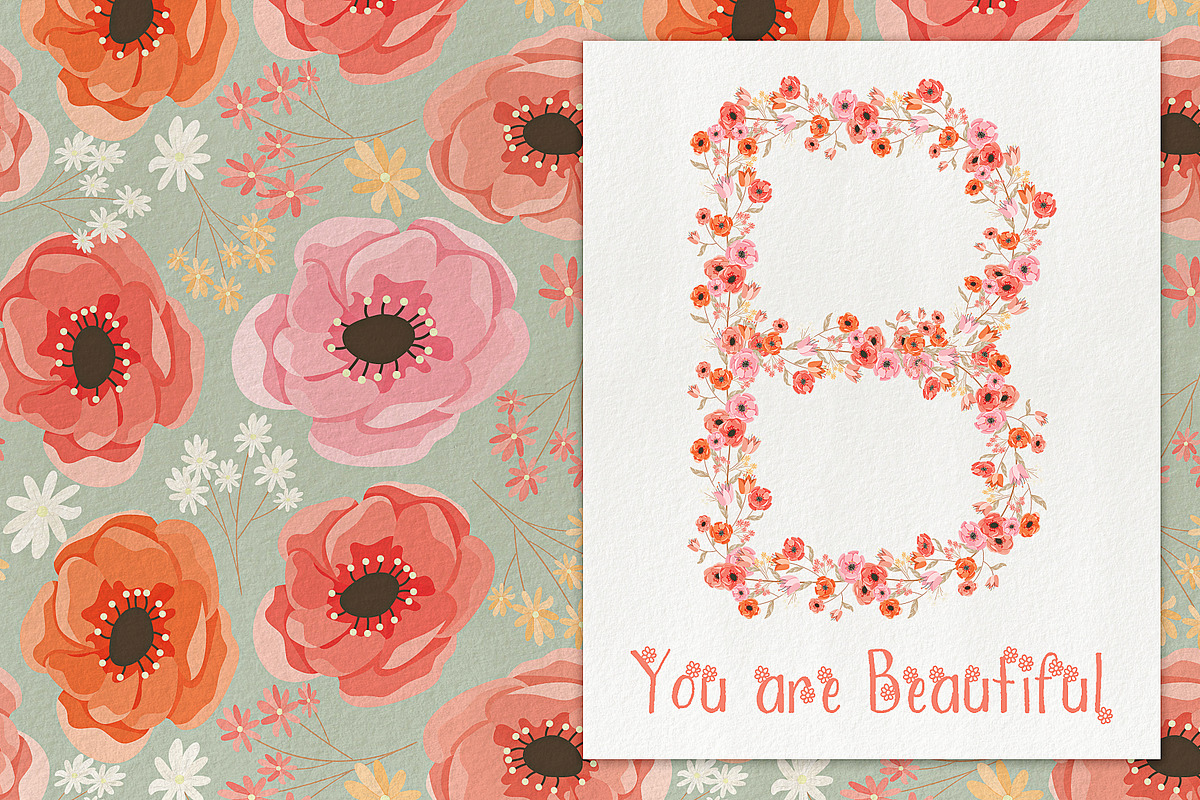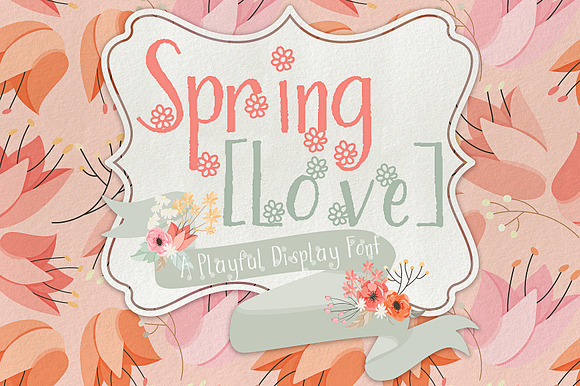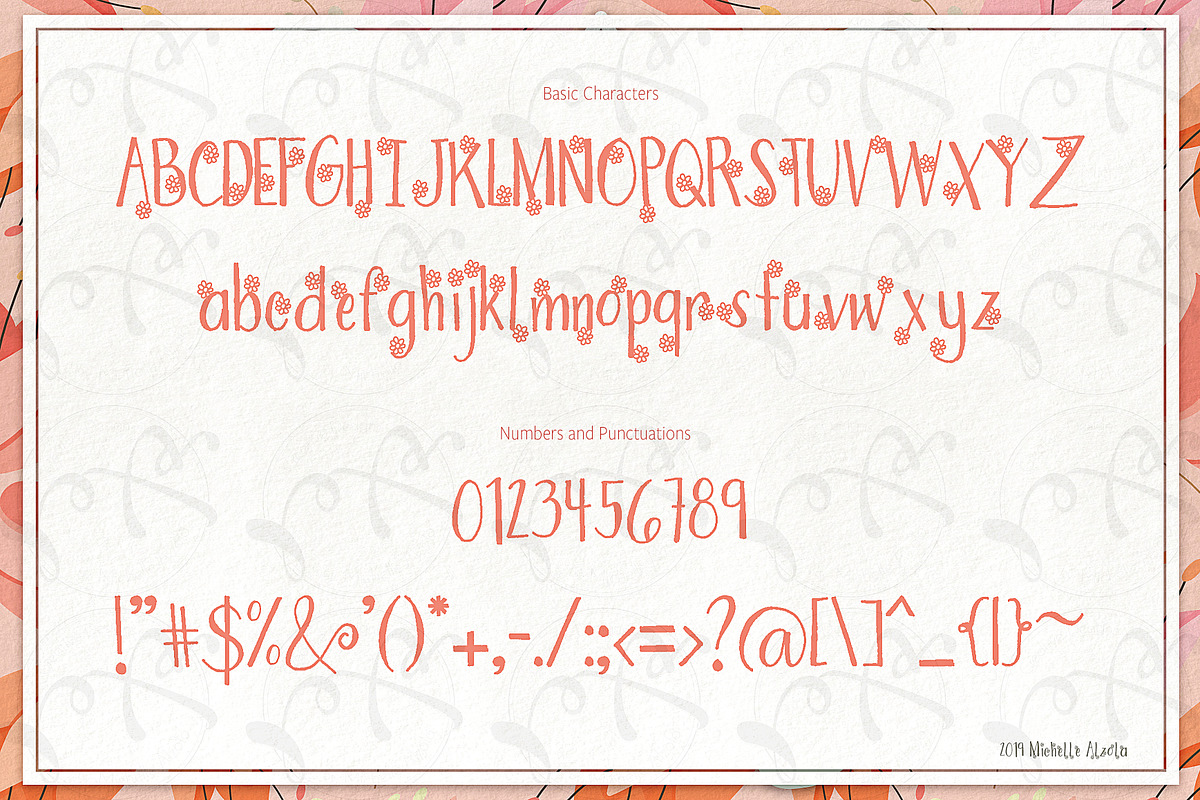
Spring Love Display Font
Why Spring Love Display Font is worth a look
Spring Love Display Font by Michelle Alzola fits naturally into Branding, posters, packaging, typography.